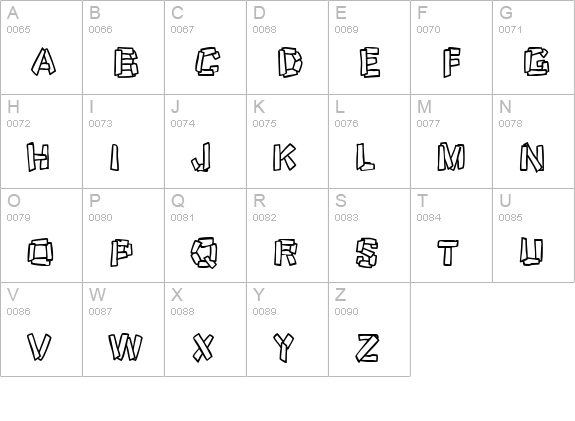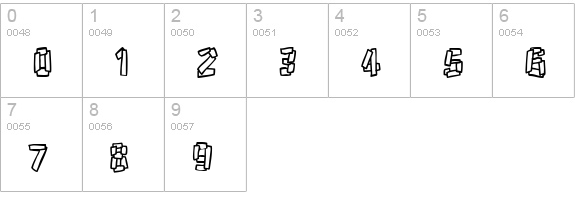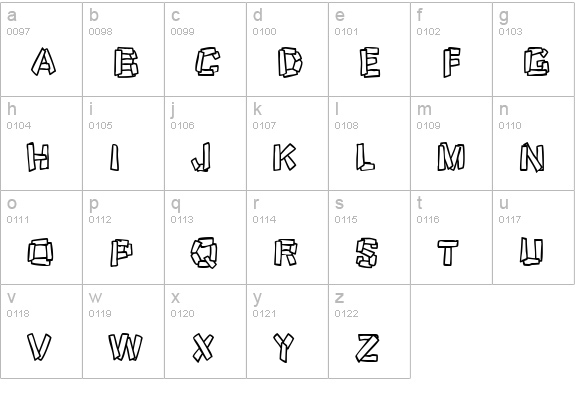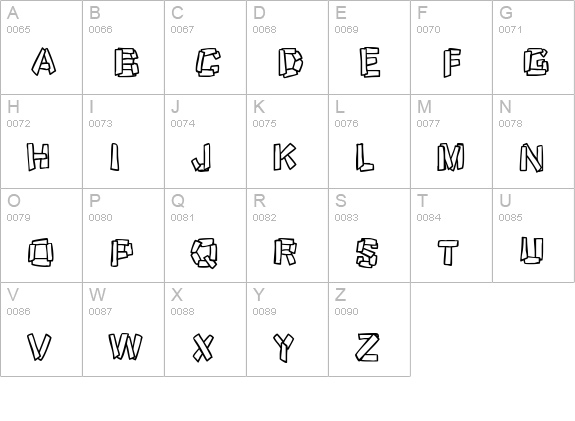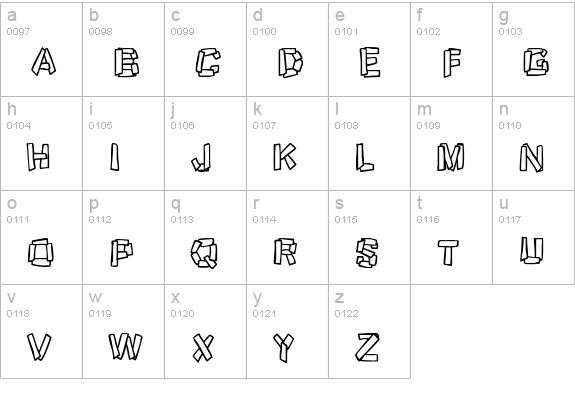
Funky Stoneage font is a bold and vibrant typeface that brings a retro and funky vibe to any design project. With its quirky and playful letterforms, this font is perfect for adding a touch of personality and fun to your creations. Whether you're working on a poster, logo, or website design, Funky Stoneage font is sure to make a statement. Best of all, Funky Stoneage font is available for free download at FontsMarket.com. So go ahead and add this unique and eye-catching font to your collection today!